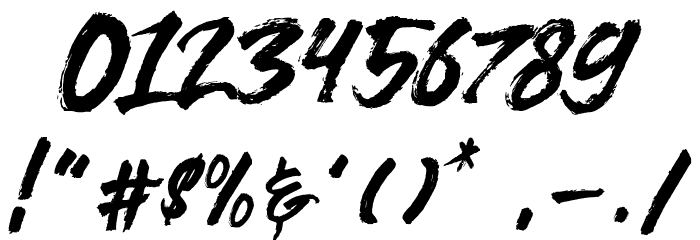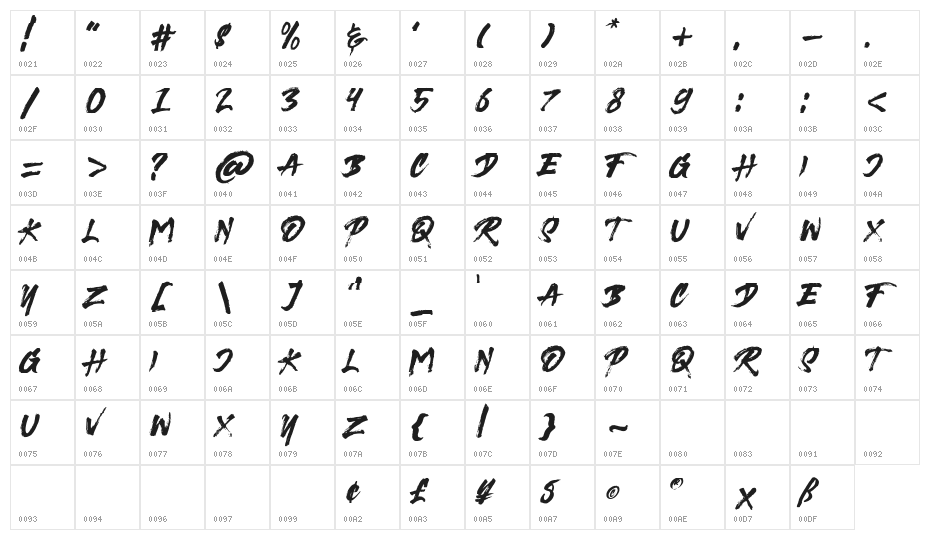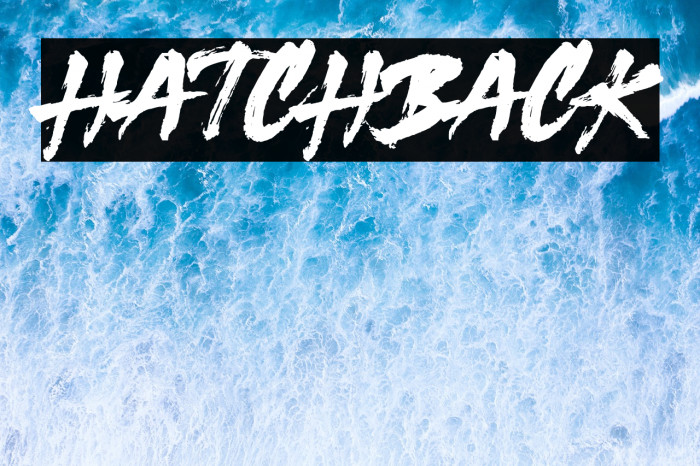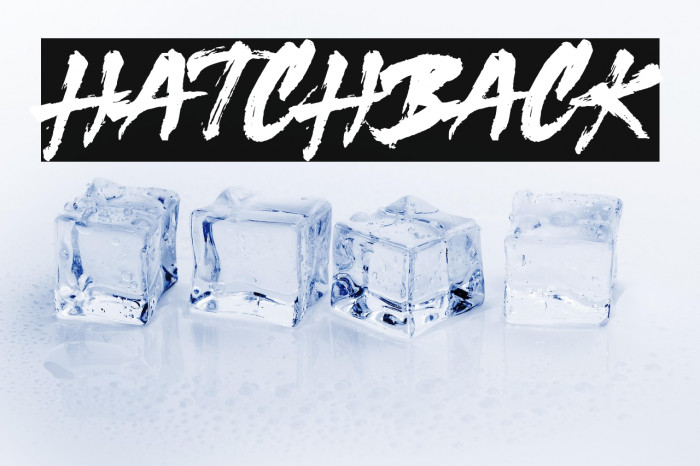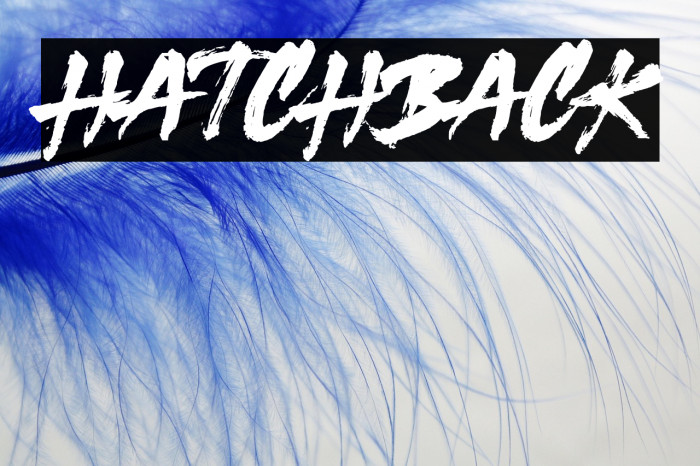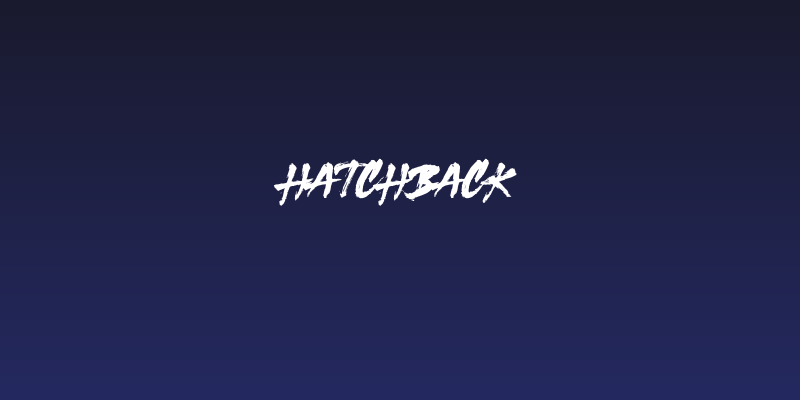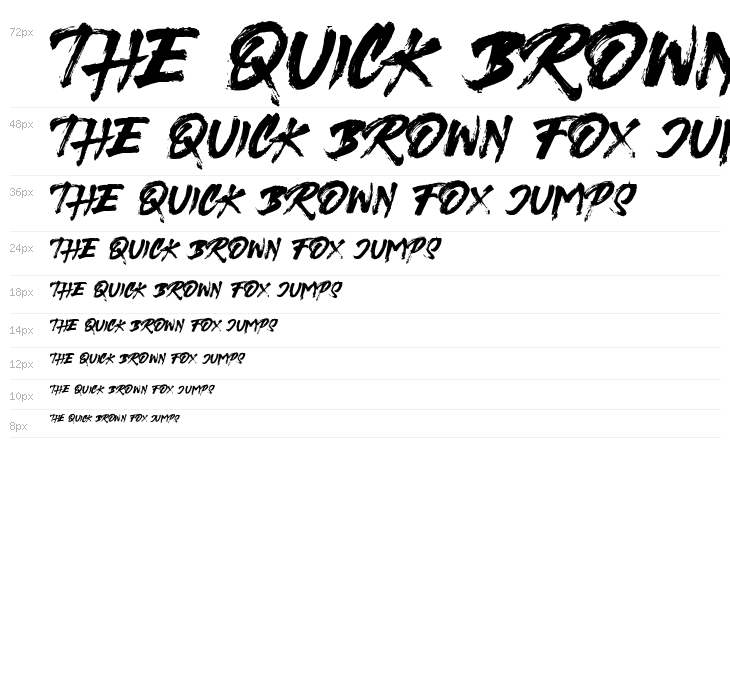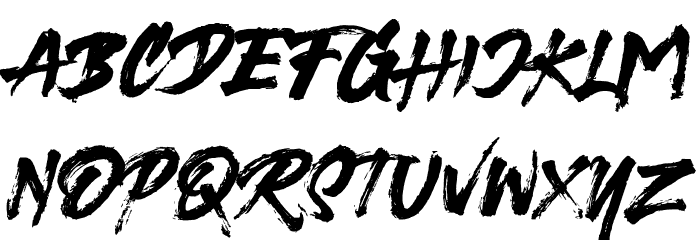
Hatchback Font
Hatchback Description
This font exudes a bold and energetic style, characterized by its brush-like strokes and dynamic movement. The letters have a hand-painted appearance, with uneven edges and varying thickness that add a sense of spontaneity and creativity. The uppercase and lowercase letters maintain a consistent style, with a slightly slanted orientation that enhances the font's lively and informal feel. The numbers and special characters are equally expressive, making this font suitable for projects that require a personal and artistic touch.
| Proposed Projects | Ideal for posters, branding, album covers, and creative projects that require a bold and artistic flair. |